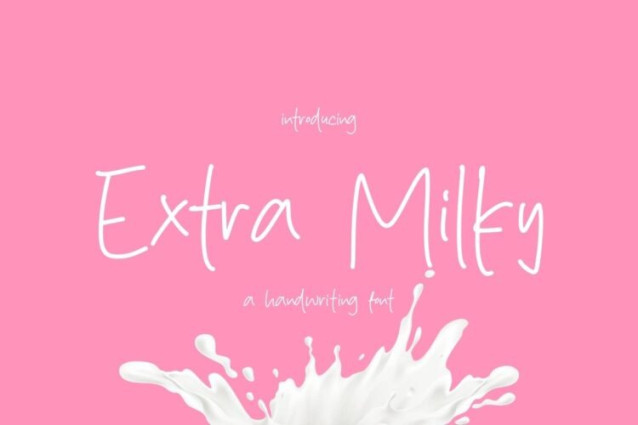
Extra Milky Font
Extra Milky Font is a simple and friendly handwritten font. Its natural and unique style makes it incredibly fitting to a large pool of designs. The only limit is your imagination!